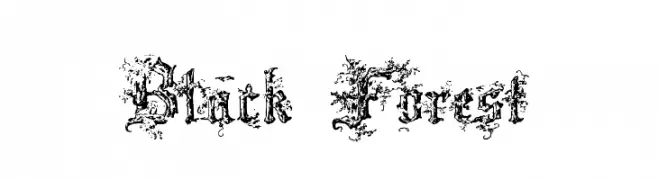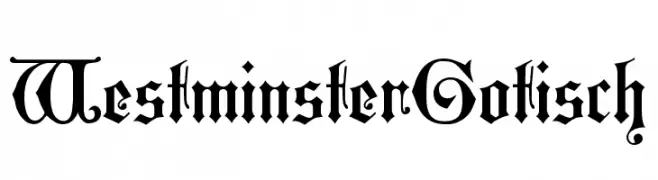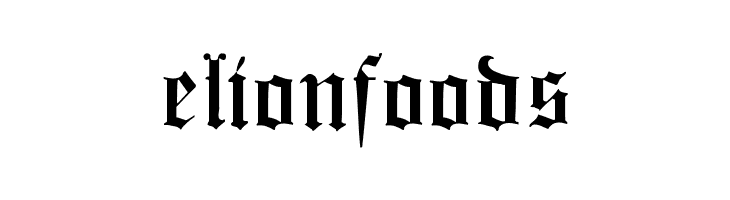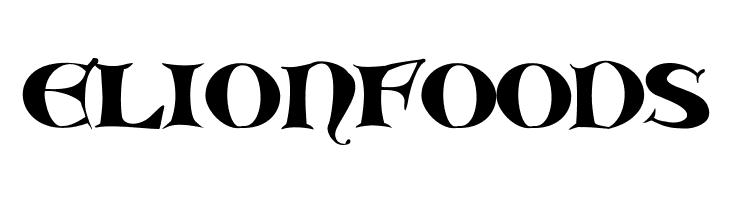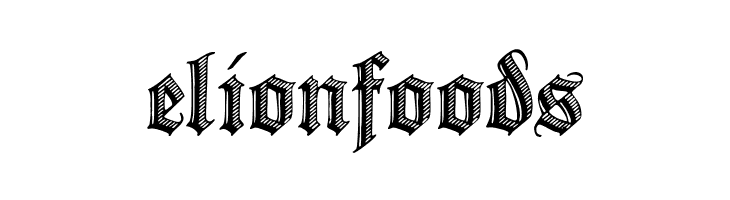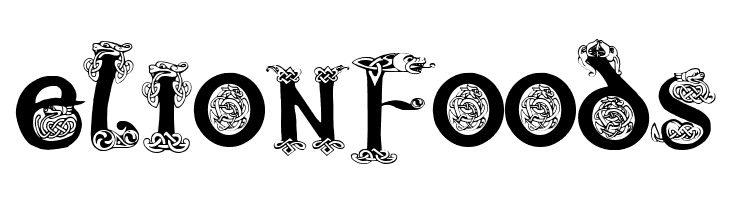
A bold, intricate blackletter font with a historic and gothic style.
An ornate and decorative font with intricate spirals and flourishes.
An ornate and intricate Blackletter-style font with high contrast and decorative flourishes.
A classic blackletter font with ornate, intricate letterforms.
A classic Blackletter font with bold, ornate characters and high contrast strokes.
An ornate, classic blackletter font with intricate details and historical elegance.
An ornate, Gothic-inspired decorative font with intricate square frames.
An ornate and decorative font with intricate swirls and embellishments.